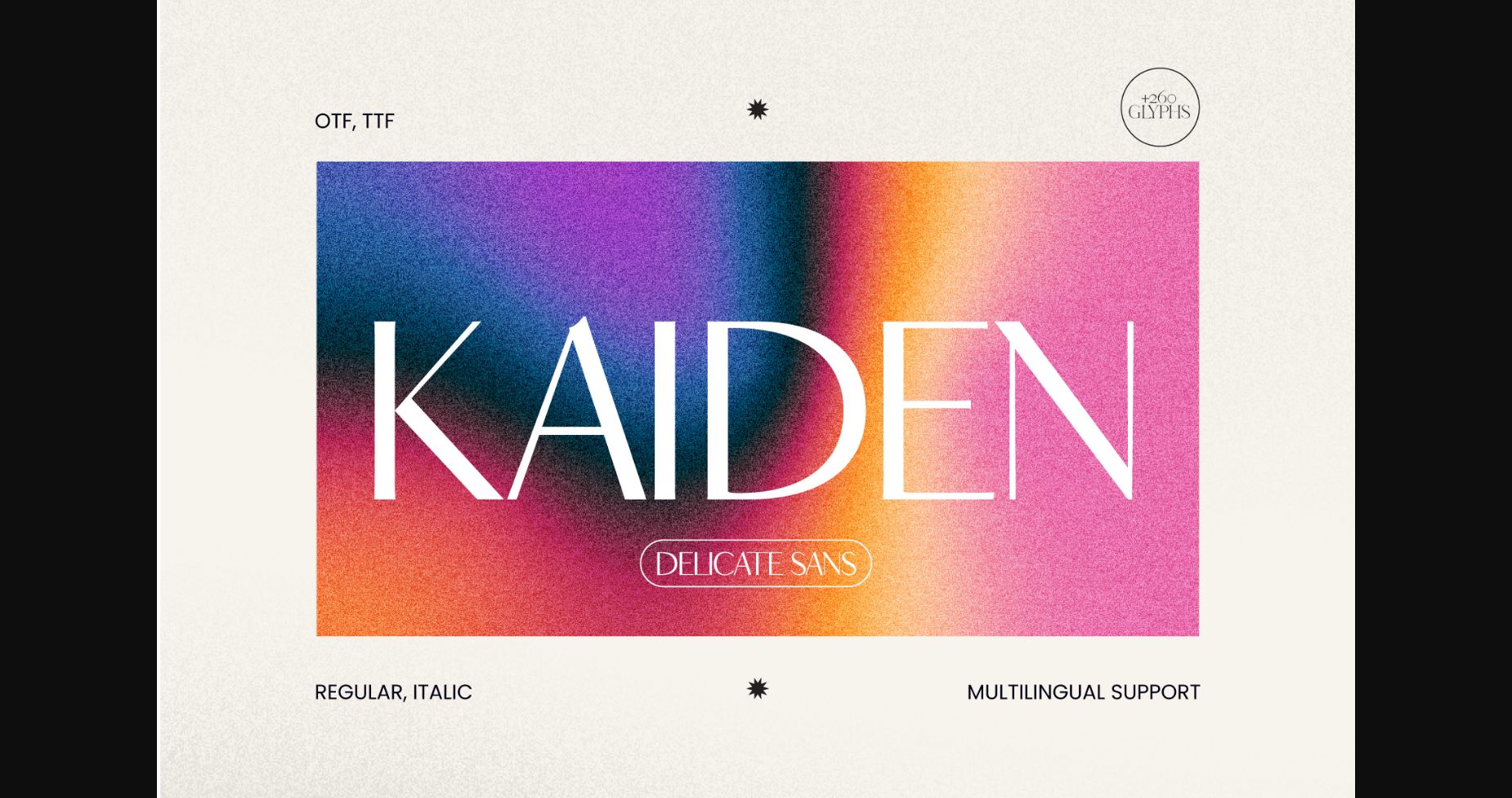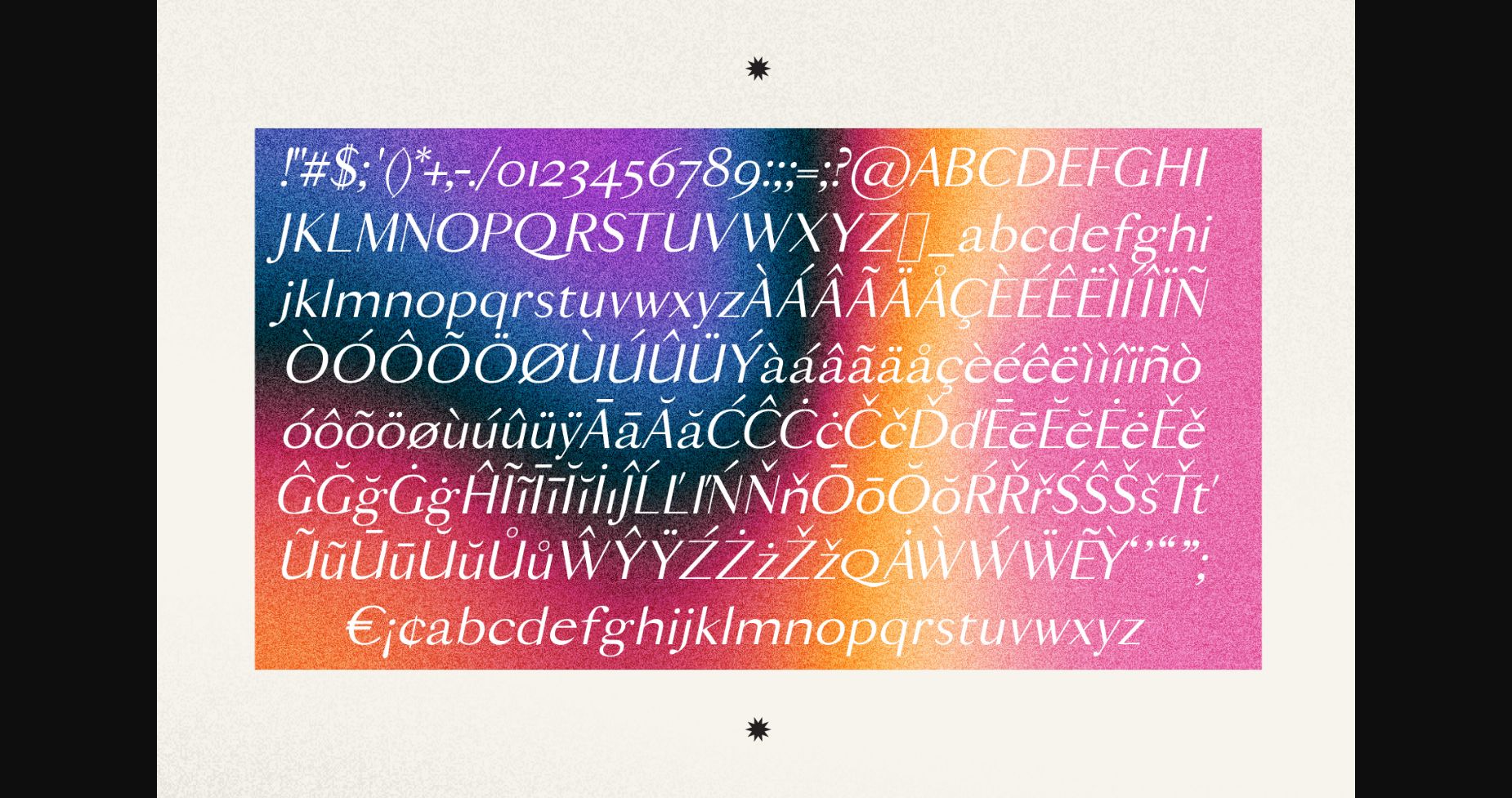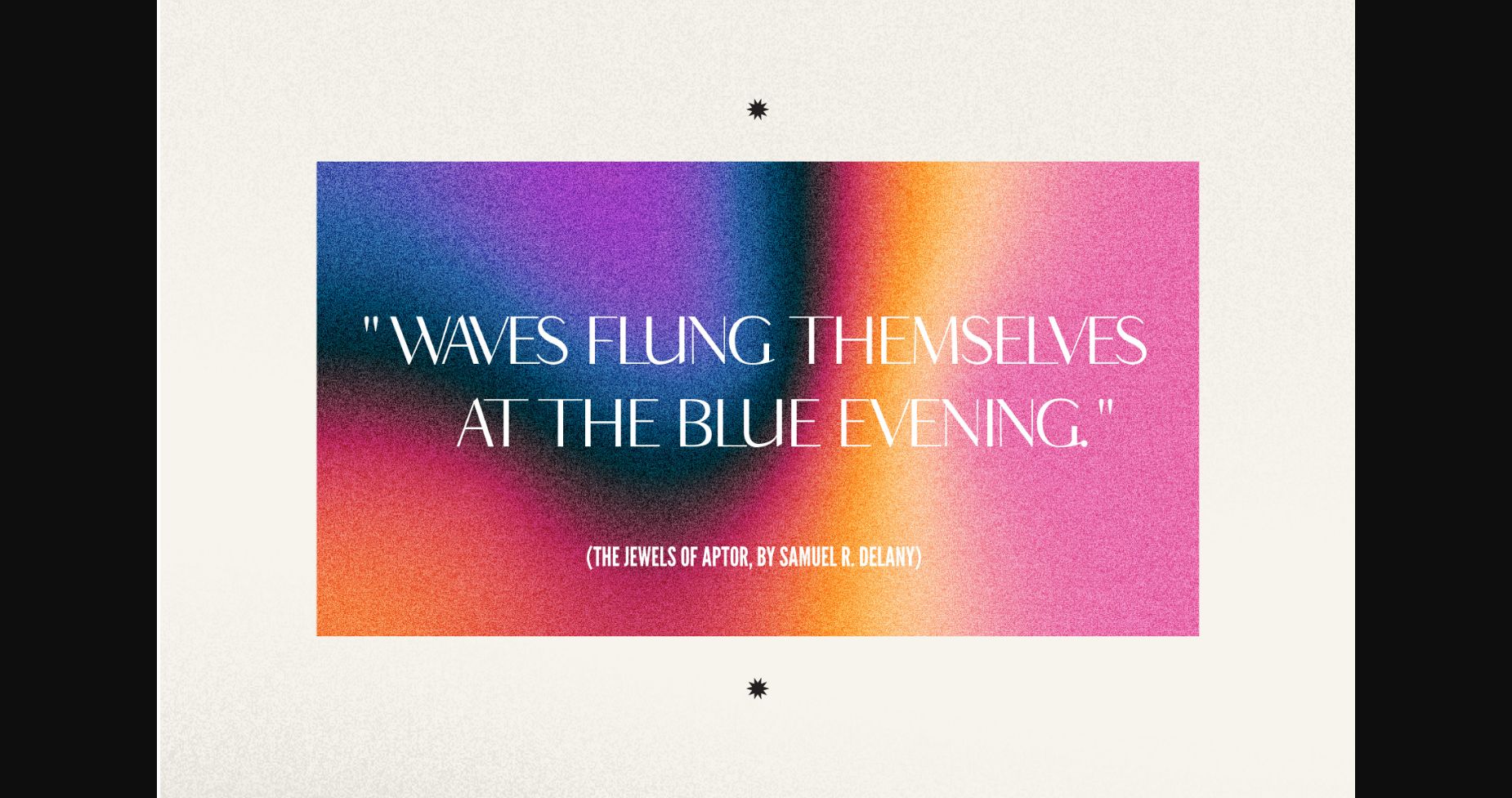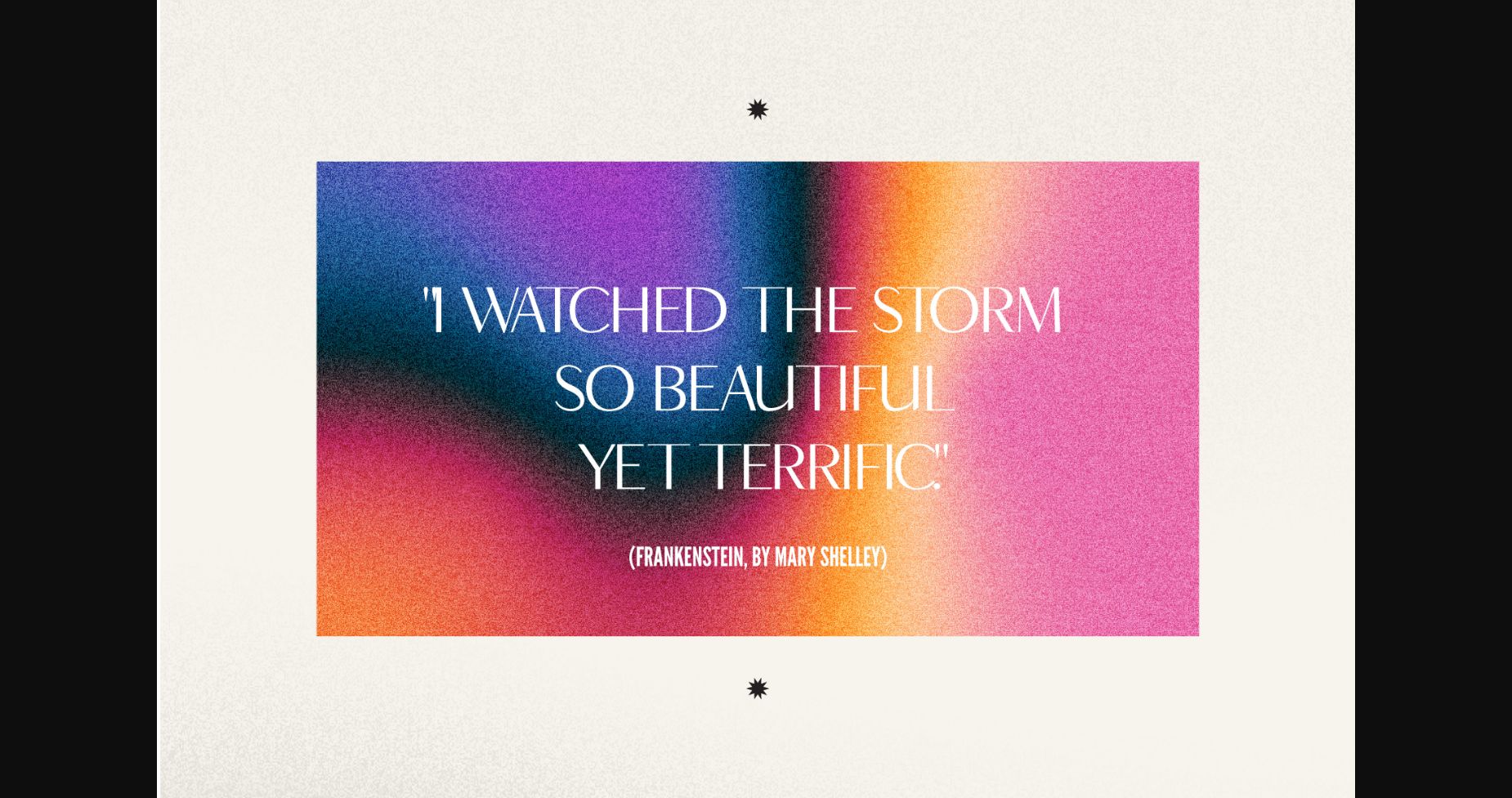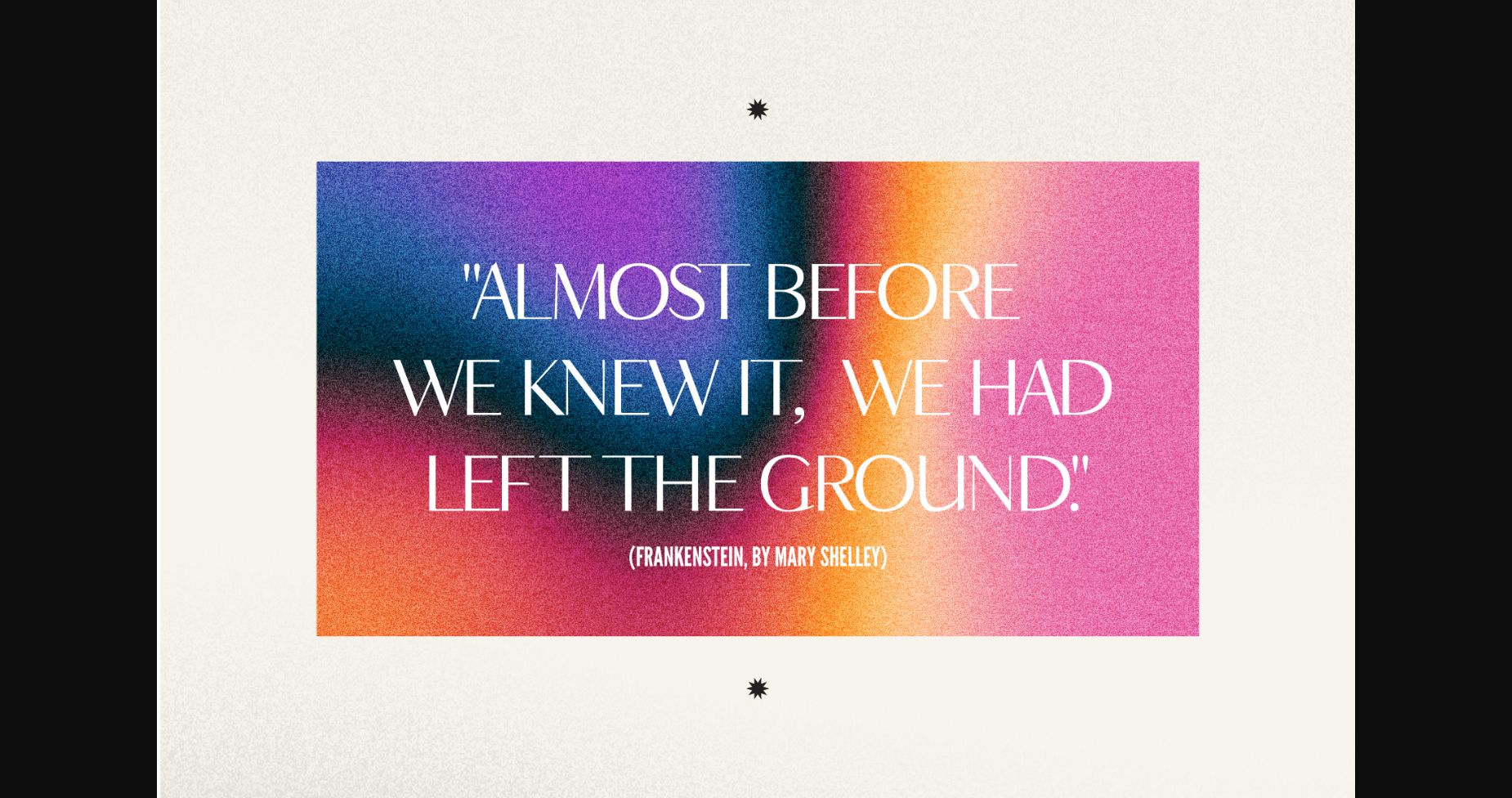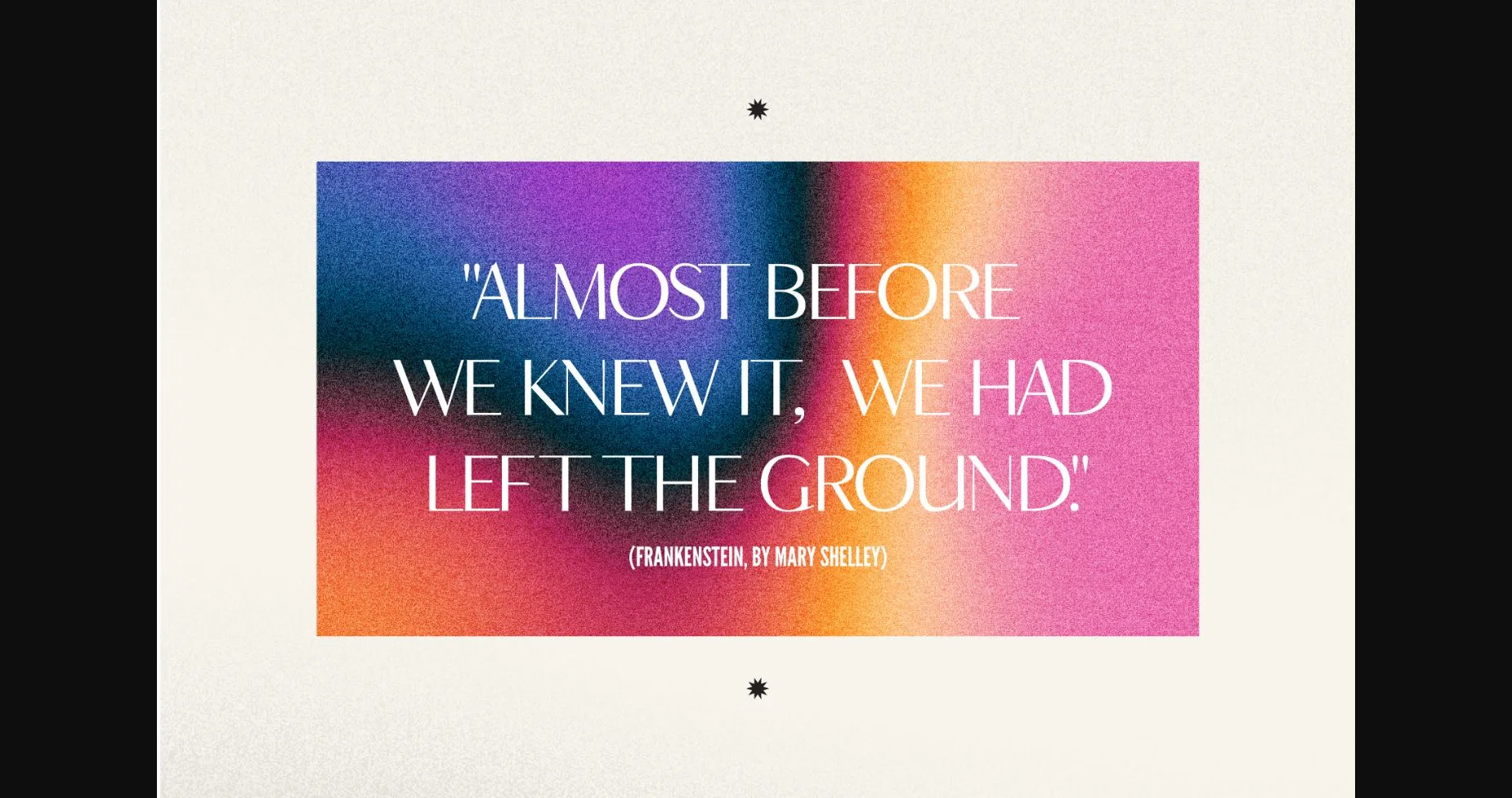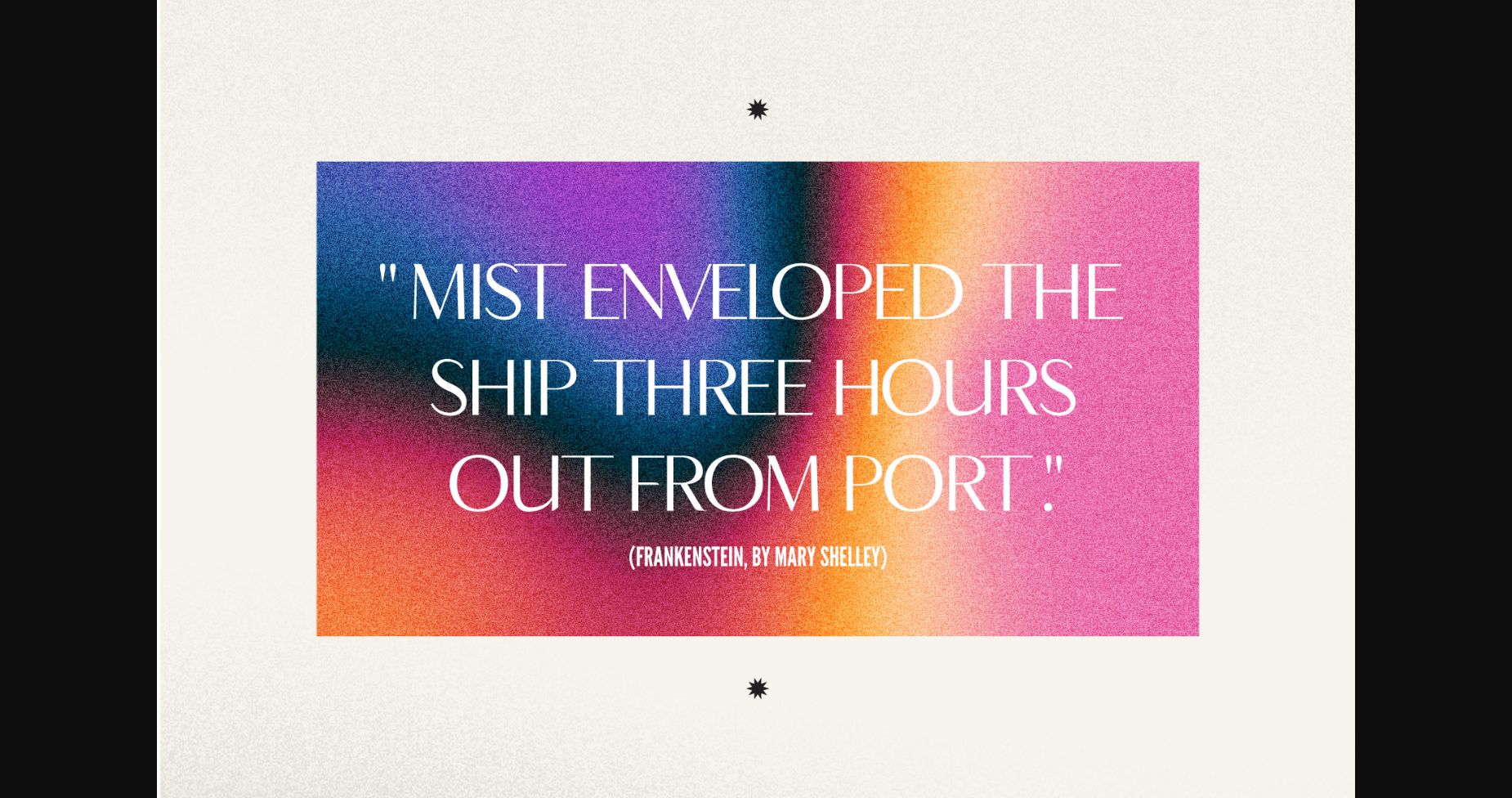
Kaiden Font
About Kaiden Font
Introducing Kaiden – a sleek and modern sans serif typeface perfect for any design project. With its clean, minimal lines and versatile style, this font is ideal for headlines, logos, and body copy. Its strong, legible letterforms make it easy to read on screen and in print, and its lack of serifs gives it a contemporary feel. Use it to create a polished and professional look in any design, from websites and brochures to posters and packaging.